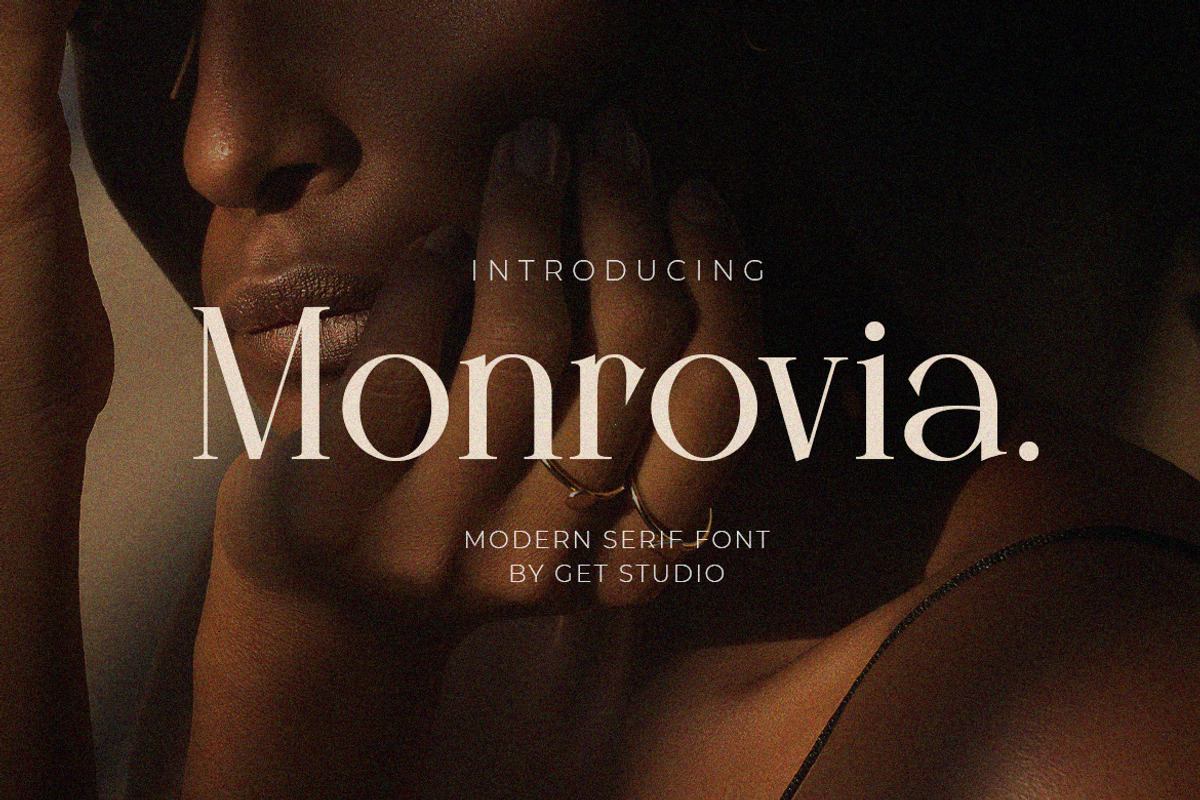
Monrovia - Modern Serif Font Free Download is a sophisticated and sleek serif typeface that brings a contemporary twist to classic serif design. With its clean lines, sharp edges, and balanced proportions, Monrovia is perfect for logos, branding, editorial layouts, websites, and more.
Its modern elegance and high readability make it ideal for both print and digital applications. Whether you're working on a luxury brand, a corporate website, or an elegant invitation, Monrovia offers a refined, professional look that will elevate your typography.